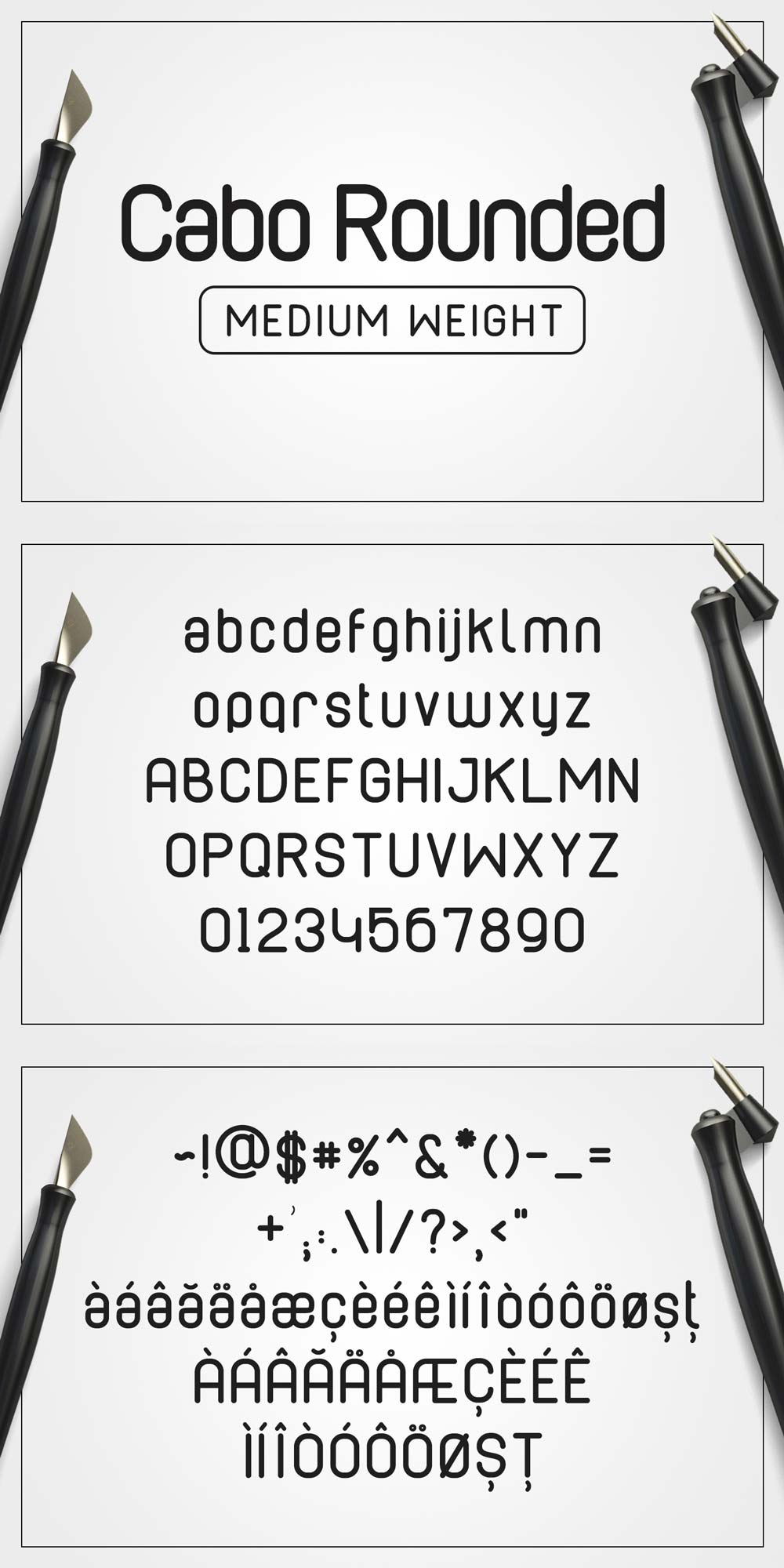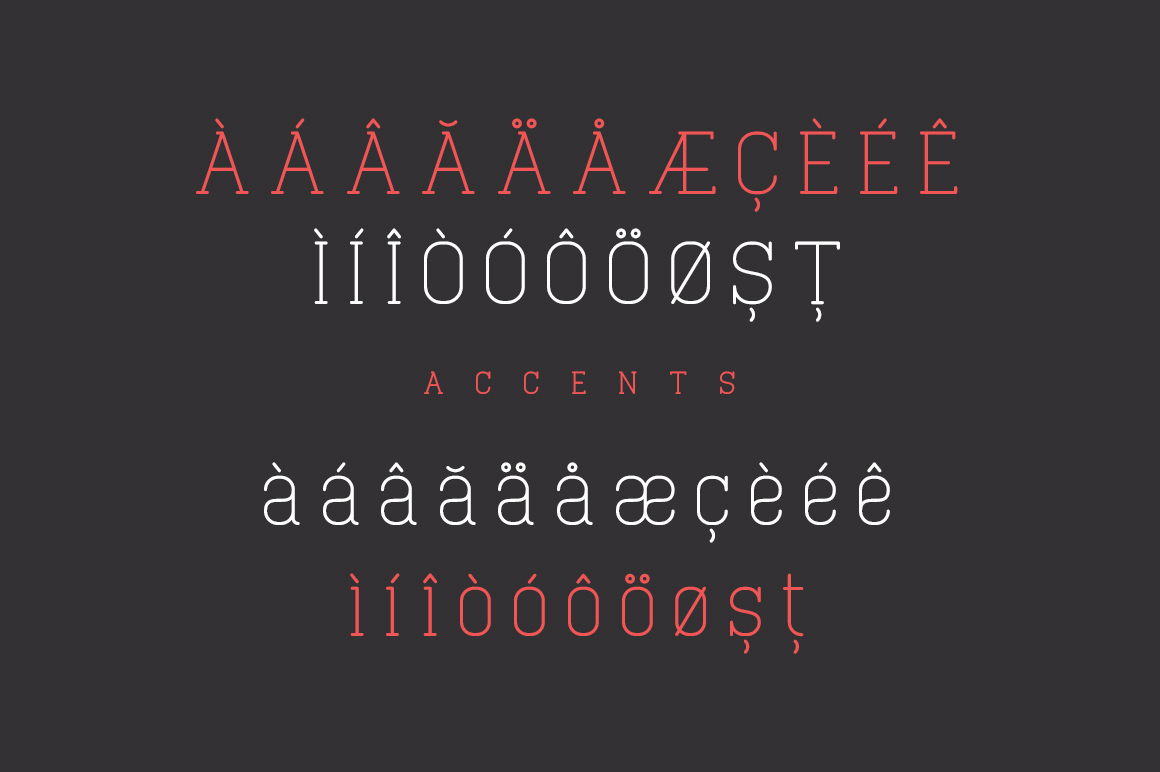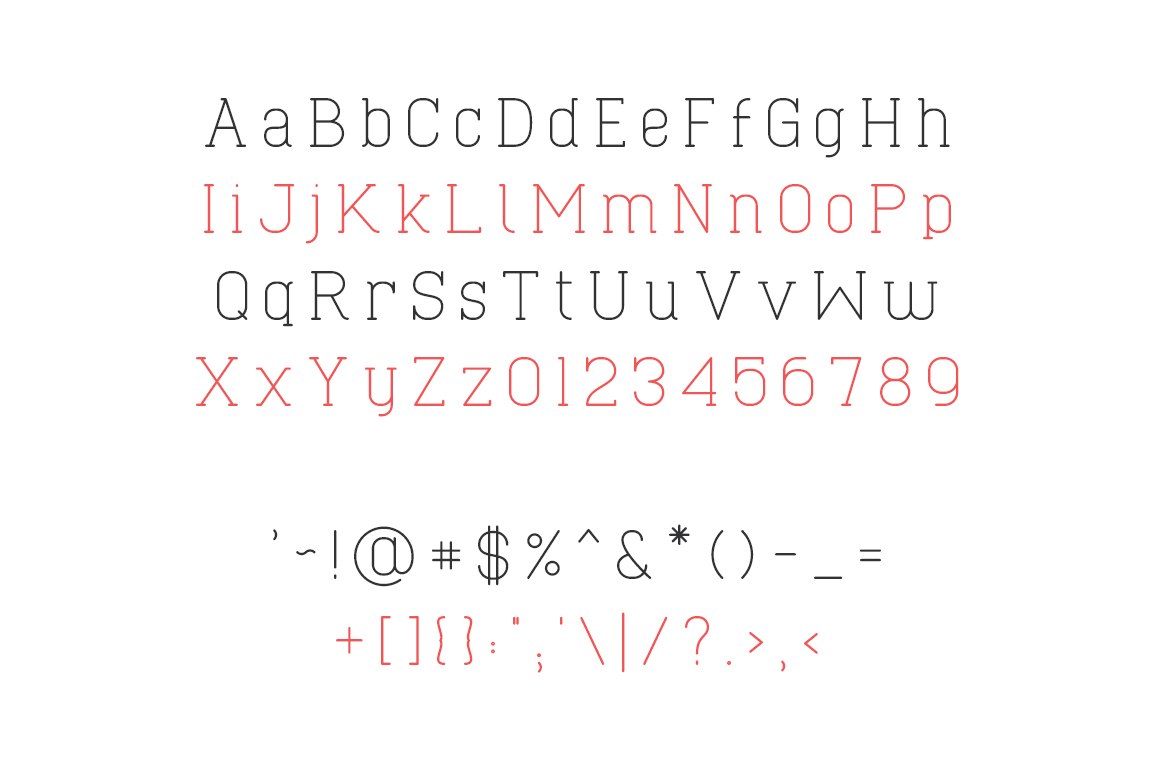
Meet Cabo Typefaces, a font duo made of a sans-serif and a slab serif typeface. Both come with a soft and modern style, defined by their rounded edges and terminations.
The typefaces that form this font duo are:
01. Cabo Rounded
02. Cabo Slab
These typefaces work with any type of projects and excel in logotype and branding. Each come in multiple weights and styles.
Due to the multiple weight styles each typeface has, you can create beautiful contrasts from type alone.
Each typeface comes with regular english alphabet letters, numbers, punctuation mark and with the following accents: À Á Â Ã Ä Å Æ Ç È É Ê Ì Í Î Ò Ó Ô Ö Ø Ș Ț à á â ã ä å æ ç è é ê ì í î ò ó ô ö ø ș ț. More can be added, by request.
Thin and Thin Italic
Light and Light Italic
Regular and Italic
Semibold and Semibold Italic
Bold and Bold Italic
Thin and Thin Italic
Light and Light Italic
Book and Book Italic
Regular and Italic
Medium and Medium Italic
Semibold and Semibold Italic
Bold and Bold Italic
Due to the multiple weight styles each typeface has, you can create beautiful contrasts from type alone.
Each typeface comes with regular english alphabet letters, numbers, punctuation mark and with the following accents: À Á Â Ã Ä Å Æ Ç È É Ê Ì Í Î Ò Ó Ô Ö Ø Ș Ț à á â ã ä å æ ç è é ê ì í î ò ó ô ö ø ș ț. More can be added, by request.